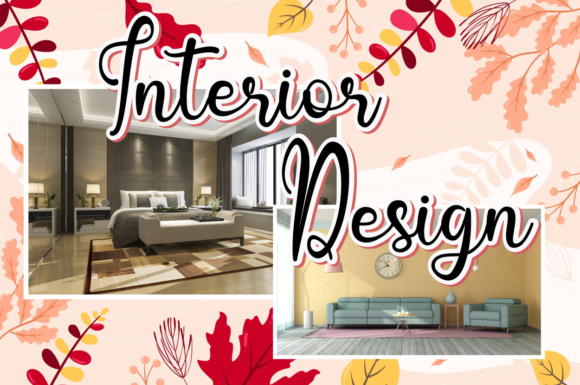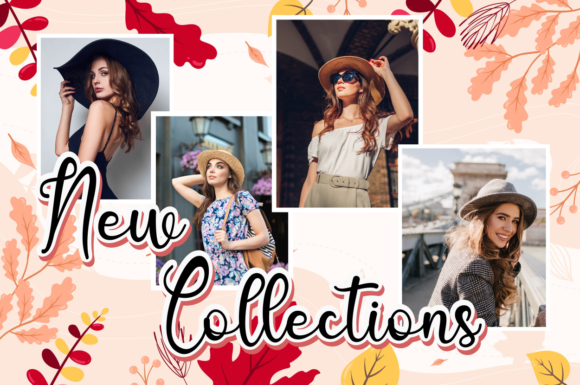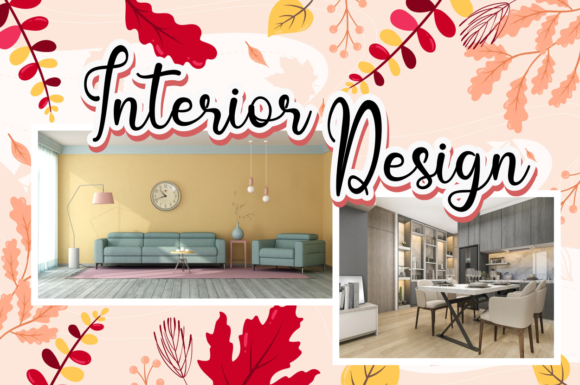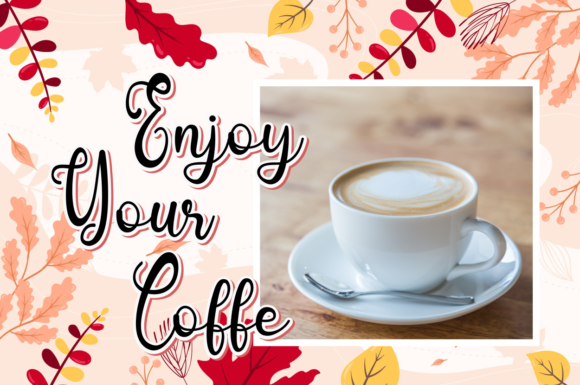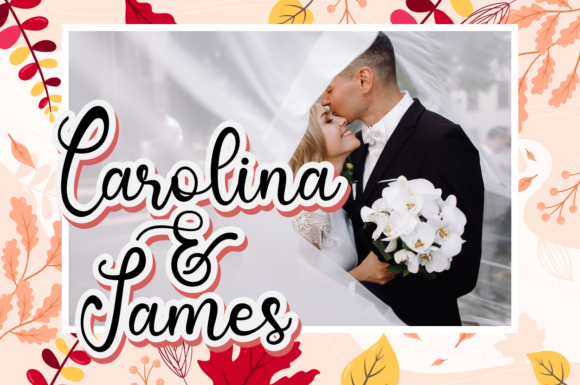
Anggitha Font
About Anggitha Font
Anggitha is a stunning and contemporary script font that features a handmade calligraphy style, decorative characters, and a playful dancing baseline. Its unique design makes it a perfect choice for a wide range of creative projects, including invitations, greeting cards, branding materials, business cards, quotes, posters, and more.
When it comes to invitations, Anggitha adds a touch of elegance and sophistication. Its flowing and expressive letterforms create a beautiful and personalized look, making it ideal for wedding invitations, party invites, and other special occasions. The decorative characters and dancing baseline add a whimsical and charming touch, making your invitations truly stand out.
Greeting cards designed with Anggitha become memorable and heartfelt. Whether you’re creating birthday cards, thank-you notes, or holiday greetings, this font brings a sense of warmth and personality to your messages. Its modern calligraphy style adds a touch of artistry, making your cards feel truly special.
Branding materials benefit from the contemporary and fresh look of Anggitha. The font’s unique letterforms and playful baseline create a dynamic and eye-catching visual identity. Whether you’re designing a logo, packaging, or marketing materials, Anggitha adds a touch of creativity and modernity to your brand.
Business cards designed with Anggitha make a lasting impression. The font’s handmade calligraphy style adds a personal and artistic touch, making your contact information stand out. Its decorative characters and dancing baseline add a touch of flair, reflecting your creativity and attention to detail.
Quotes and posters come to life with Anggitha’s expressive and dynamic letterforms. The font’s modern calligraphy style brings a sense of energy and movement to your quotes, making them visually captivating. Whether you’re designing motivational posters, inspirational graphics, or social media content, Anggitha adds a fresh and contemporary vibe.
Overall, Anggitha is a beautiful and versatile script font that adds a fresh and modern touch to your designs. Its handmade calligraphy style, decorative characters, and dancing baseline make it a perfect choice for invitations, greeting cards, branding materials, business cards, quotes, posters, and more. With Anggitha, your designs will exude creativity, elegance, and a touch of artistic flair.